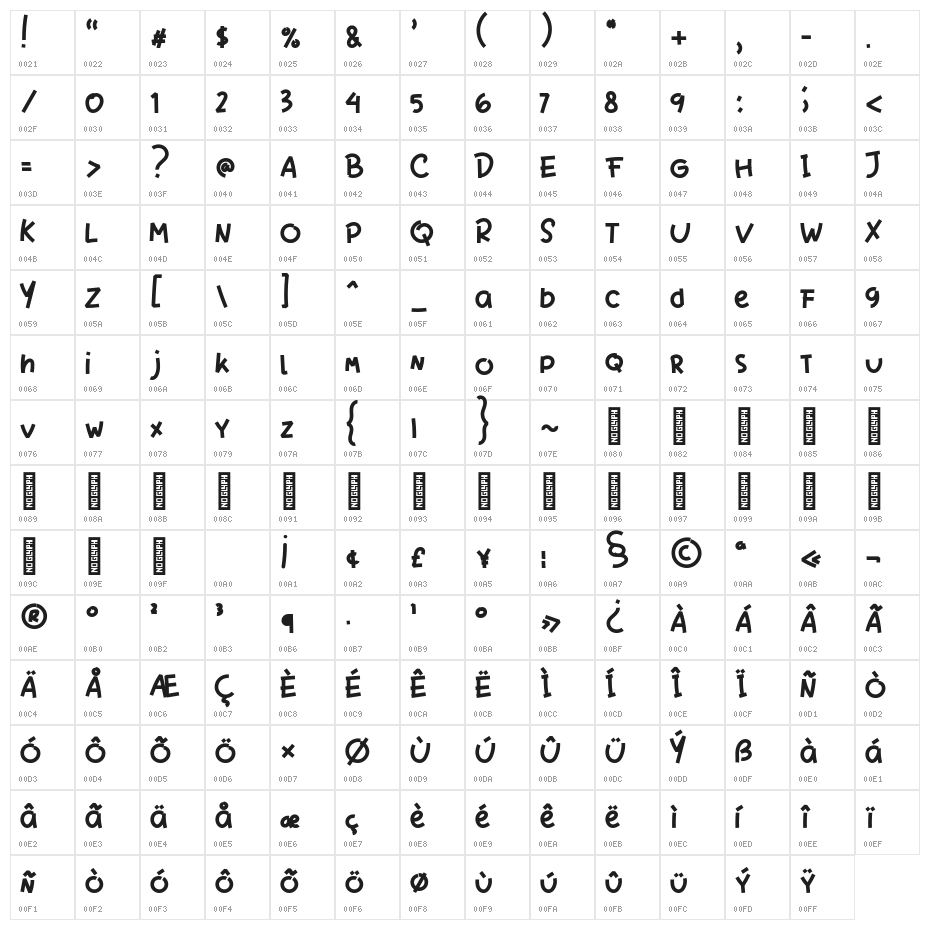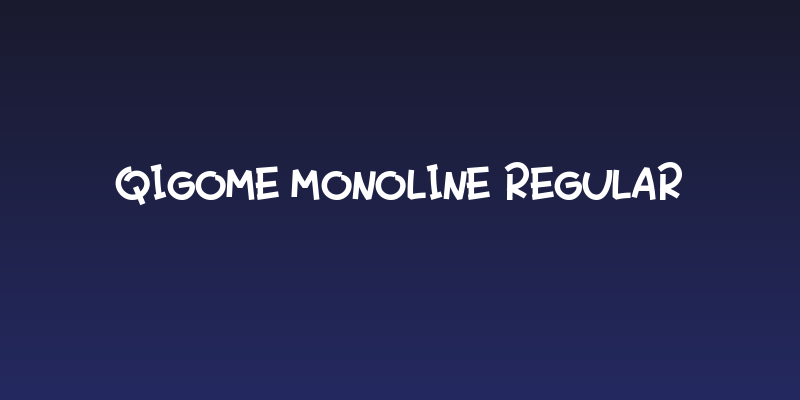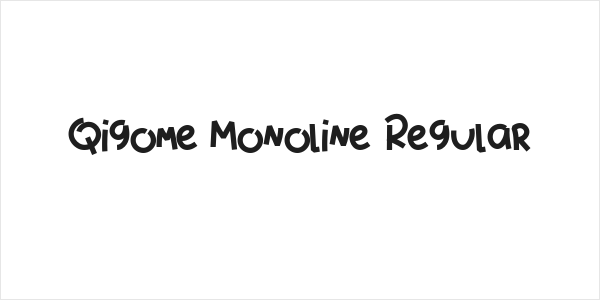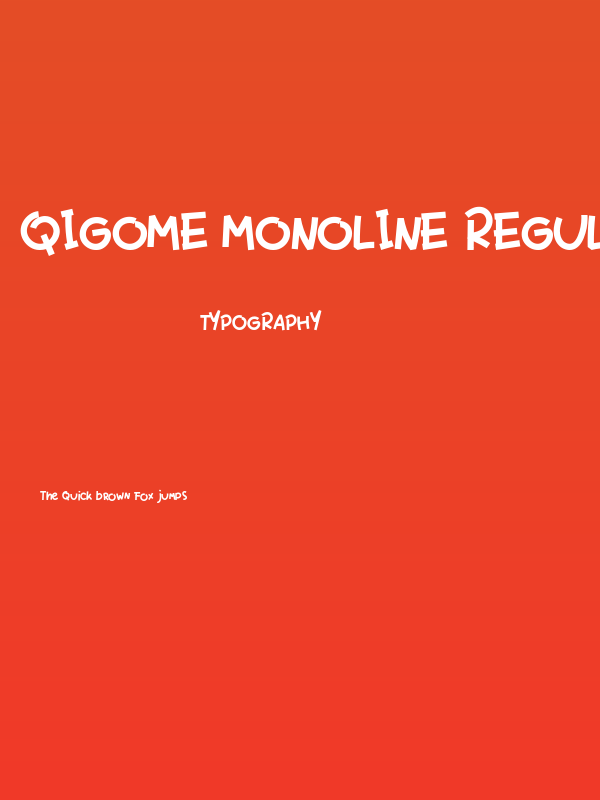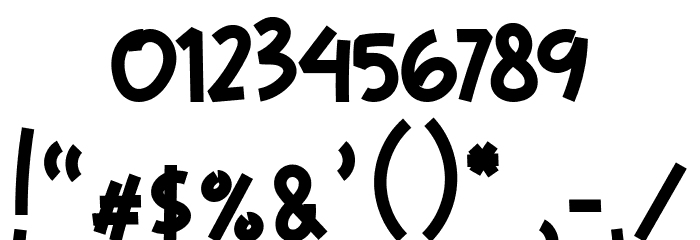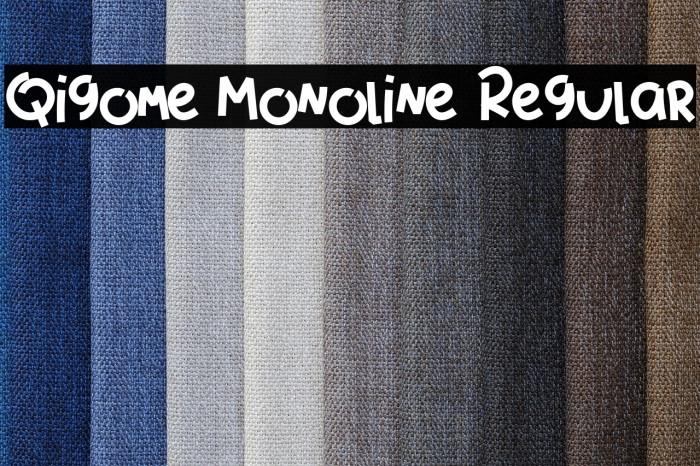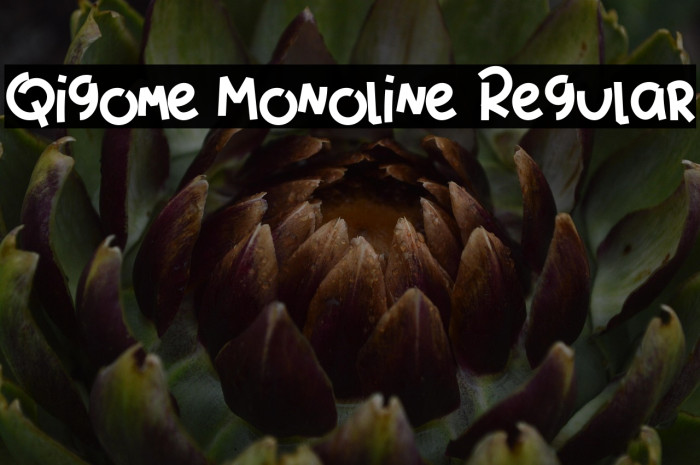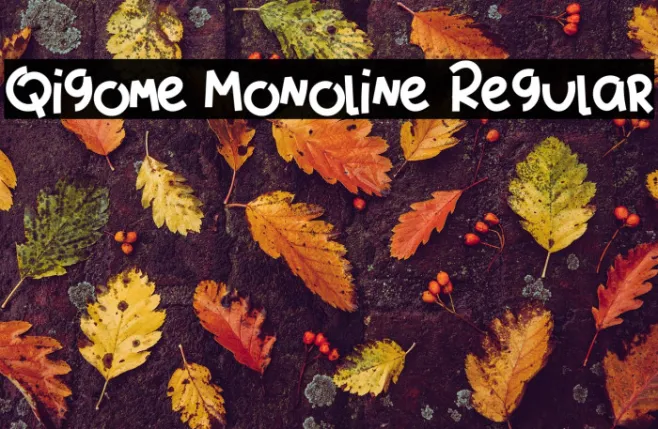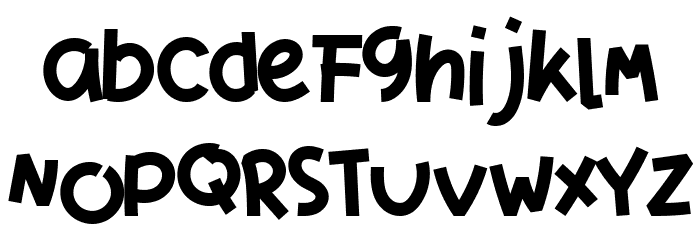
Qigome Monoline Regular Font
| Gesamtstil | Playful, Energetic, Hand-drawn |
| Anwendungsfall | Headlines, Posters, Branding |
| Vorgeschlagene Projekte | Perfect for children's books, comic strips, playful branding, and creative posters. |